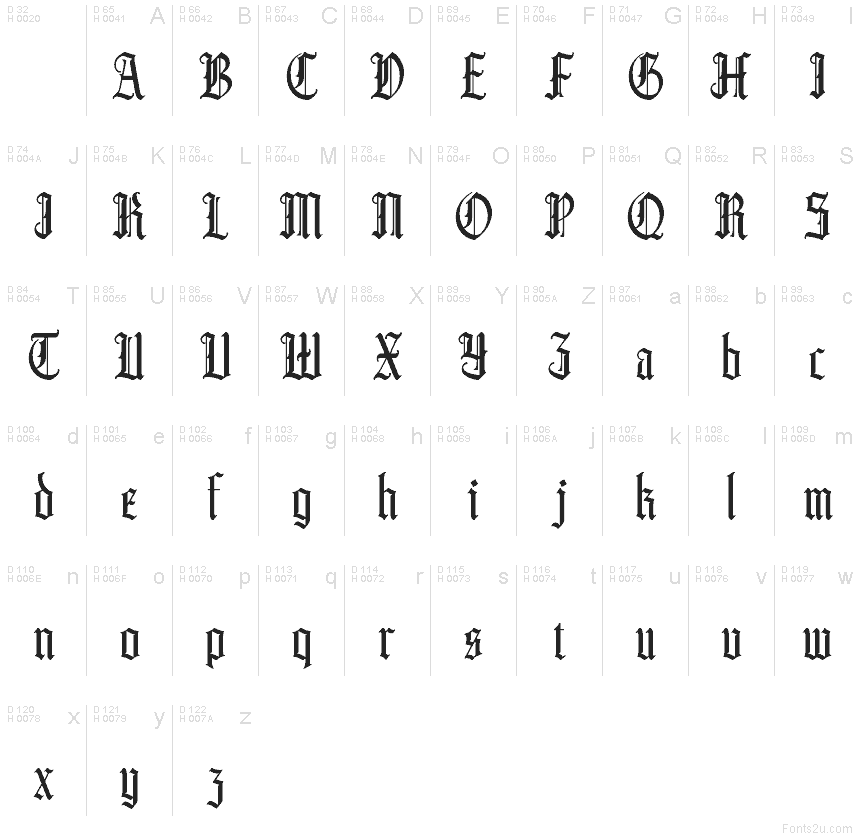
Cambrine Regular Demo
Cambrine font by Craft Supply Co. is a gothic medieval condensed font perfect to add an historical and traditional feel to your design. Each element is professionally handcrafted with decorative ornaments visible in even the smallest details. Naturally, a formal feel accompanies this typeface and becomes valuable with its intricate letters.
Cambrine can easily enhance book covers of historical and religious topics, posters, logo designs for special clientele like schools, universities or even museums. Other usage examples include newspapers, magazines, packaging design, YouTube channels focused on medieval content and documentaries.